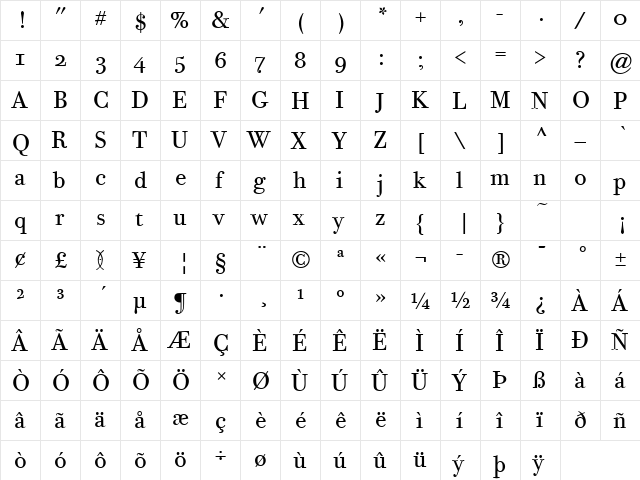
Bodoni Twelve OS ITC TT Book
Design Context for Bodoni Twelve OS ITC TT Typeface
Bodoni Twelve OS ITC TT offers clean, dependable letterforms without strong stylistic allegiance, making it a practical choice for designers who need flexibility.